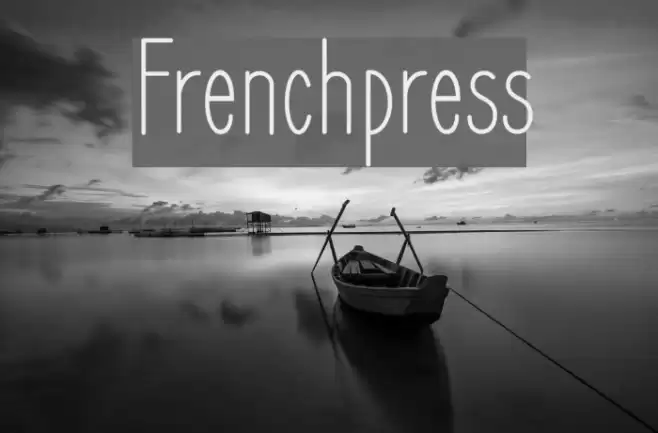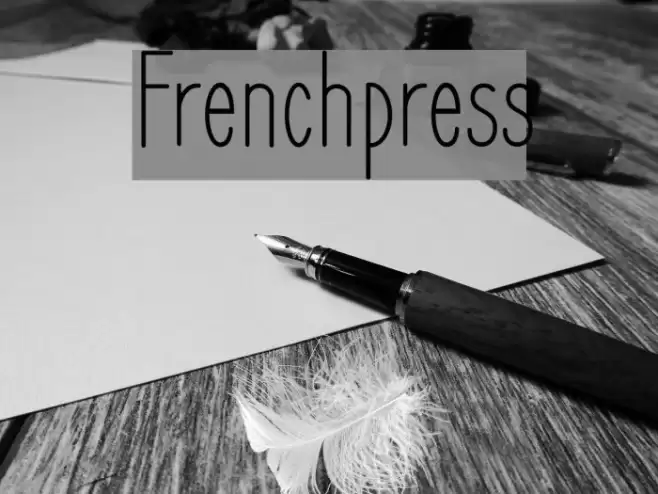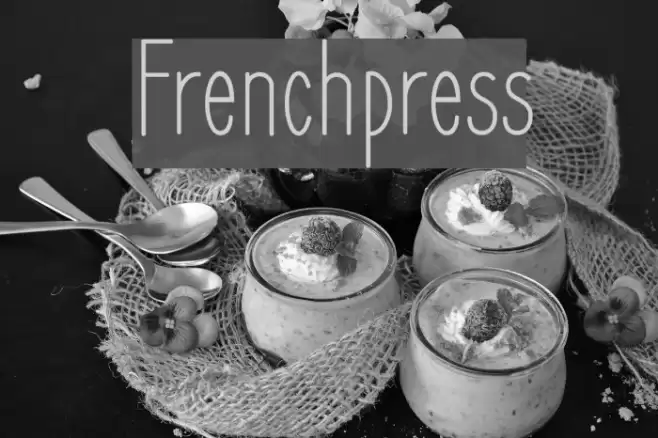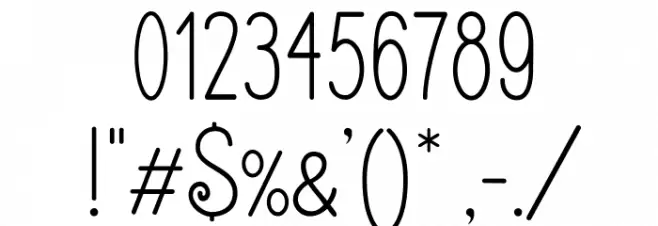
Frenchpress Font
Frenchpress Description
This font features a whimsical and playful design, characterized by its tall, slender letters with subtle curls and swirls on certain characters, adding a touch of elegance and creativity. The uppercase letters are particularly distinctive with their decorative elements, while the lowercase letters maintain a more straightforward, yet complementary style. The numerals and special characters follow the same design principles, ensuring consistency throughout the typeface. This font's unique style makes it suitable for projects that require a touch of personality and flair.
A whimsical, playful font with decorative curls and slender characters from Uncategorized fonts.
- Proposed Projects: Ideal for invitations, greeting cards, children's books, and creative branding projects.
- Use Case: Headlines, Logos, Invitations